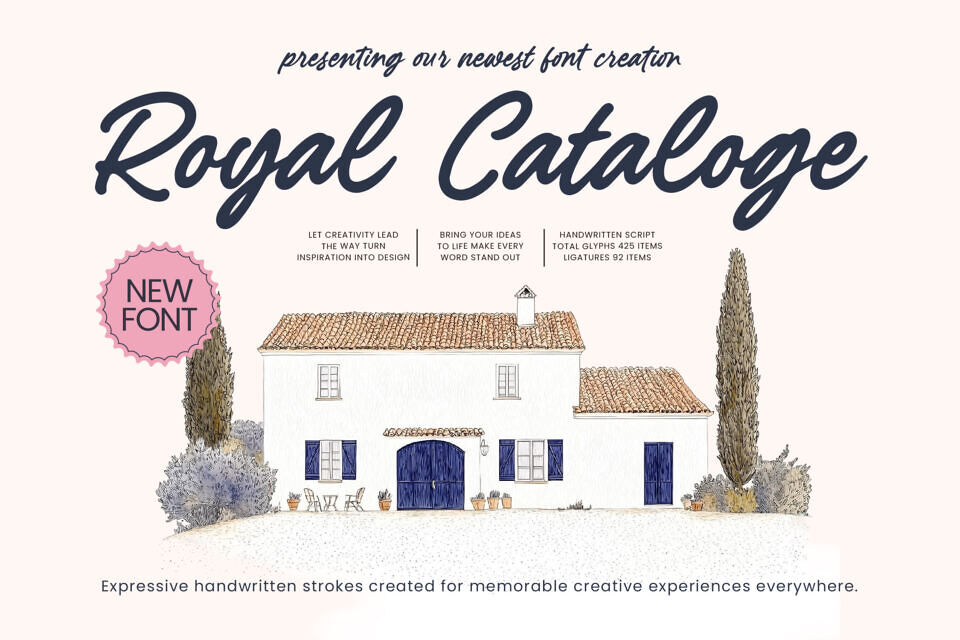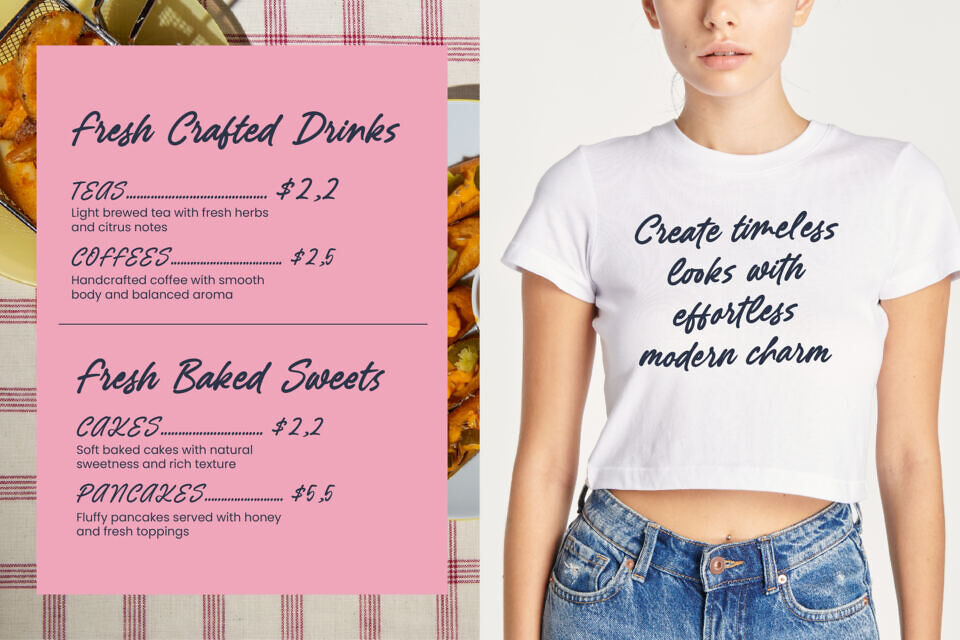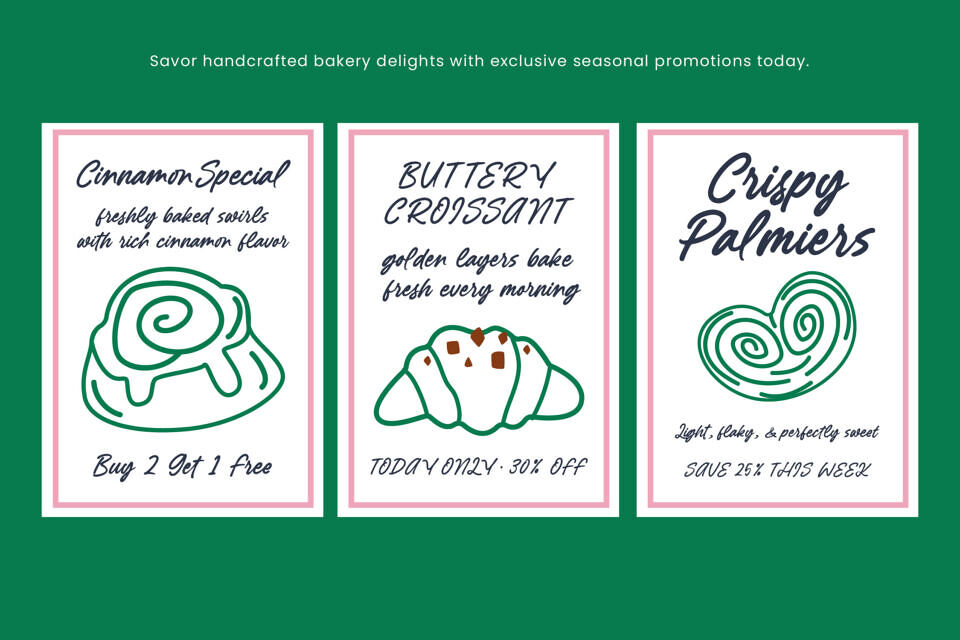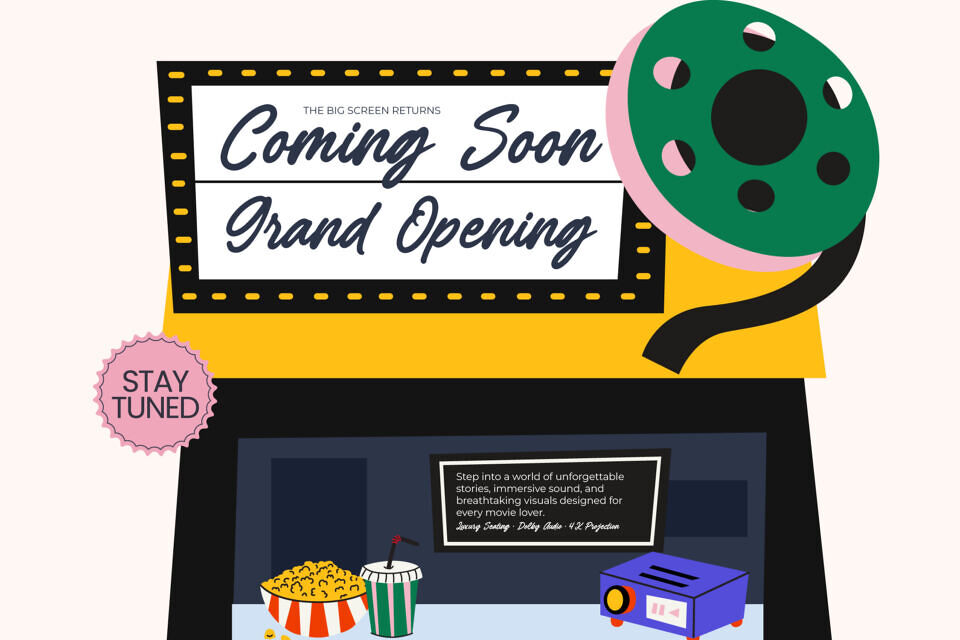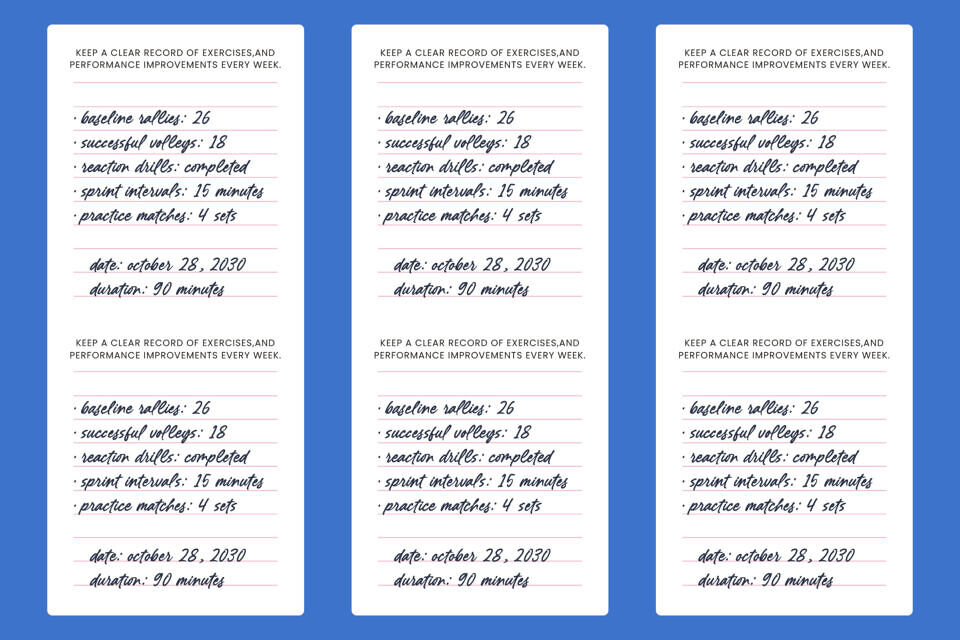
Add elegance to your designs with a refined, handwritten font that captures the charm of authentic lettering. This sophisticated typeface features bold, expressive strokes and a fluid rhythm, making it perfect for luxury branding, packaging, and editorial design.
With a comprehensive glyph set and dynamic features, it seamlessly adapts to global markets, offering a unique and professional look for any project. Its high-end finish and artistic flair make it a valuable asset for modern designers seeking to elevate their work.